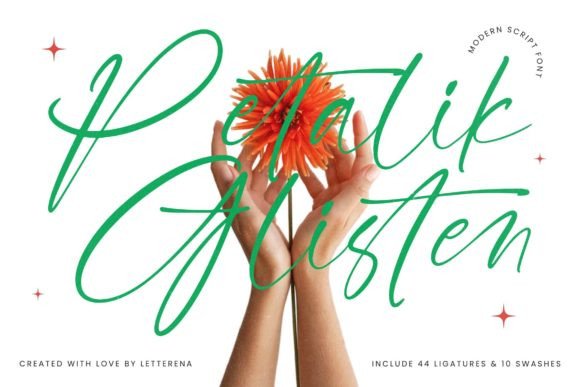
Petalik Glisten: A Luxury Script Font for Crafters
When you are searching for the perfect Fonts to elevate your handmade business, finding a typeface that balances elegance with readability is crucial. Petalik Glisten stands out as a premier choice for creators who need their designs to look expensive and professional. As a Script Handwritten style, it brings a human touch to digital and physical products alike. Whether you are designing wedding invitations or creating custom labels for your candle shop, this font offers the versatility needed to capture customer attention instantly.
Creating High-End Branding with Petalik Glisten
For small shop owners, brand identity is everything. Using Petalik Glisten in your logo design can immediately signal luxury and care to potential buyers. This Script Handwritten typeface flows beautifully, making it ideal for boutique branding projects where personality matters. When you incorporate Fonts like this into your social media graphics and watermarks, you create a cohesive visual language. Customers recognize the consistent use of elegant typography across your Instagram posts, packaging, and website. It transforms a simple handmade item into a premium product. The smooth curves and sophisticated strokes of Petalik Glisten ensure that your brand looks established and trustworthy, even if you are just starting out.
Designing Elegant Wedding Invitations and Stationery
Wedding stationery is one of the most profitable niches for printable creators and invitation designers. Petalik Glisten excels in this area because it mimics the look of high-quality calligraphy without the steep learning curve. When used for names and dates on save-the-dates, menus, and welcome signs, this Script Handwritten font adds a romantic flair. Pairing it with a clean sans serif font for the body text ensures that all the important details remain readable. Many couples look for Fonts that feel personal yet formal, and Petalik Glisten delivers both. You can use it for digital downloads that customers print at home or for professionally printed suites. The ligatures and swashes often found in luxury scripts help connect letters naturally, giving your designs that authentic handwritten feel.
Enhancing Product Packaging and Homeware Designs
Product packaging is the first physical interaction a customer has with your brand. Using Petalik Glisten on labels, tags, and boxes can significantly increase the perceived value of your goods. This Script Handwritten font works exceptionally well on minimalist packaging, where whitespace allows the typography to shine. Whether you are selling organic skincare, artisanal soaps, or gourmet treats, the right Fonts can tell the story of your product. Petalik Glisten is suitable for homeware designs such as ceramic mugs, glass jars, and tote bags. The contrast between the fluid script and hard surfaces like ceramic or glass creates a striking visual appeal. Ensure you check the licensing terms to confirm commercial use for physical goods, but generally, this type of premium font is designed to help sellers stand out on shelves and in online marketplaces.
Crafting Personalized Mugs and Quote Posters
Print-on-demand and handmade gift items rely heavily on typography. Petalik Glisten is perfect for creating personalized mugs, where a name or a short phrase takes center stage. The elegance of this Script Handwritten style makes it a favorite for inspirational quotes and posters. When designing for wall art, consider the scale. Fonts need to be legible from a distance, so using Petalik Glisten for the main headline while keeping supporting text simple is a smart strategy. This approach works well for nursery decor, kitchen signs, and bedroom prints. The font’s natural rhythm guides the eye through the design, making the message feel intimate and special. For crafters using cutting machines, ensure you weld the letters properly to maintain the connections that make script fonts look authentic.
Practical Tips for Readability and Cutting Machines
While Petalik Glisten is visually stunning, practical application requires attention to detail. When using Script Handwritten Fonts with Cricut or Silhouette machines, always preview your design at actual size. Thin strokes can sometimes be fragile when cut from vinyl or cardstock. Adjusting the size ensures that the delicate parts of the letterforms do not tear during weeding. For product labels, avoid using the script for long paragraphs. Instead, reserve Petalik Glisten for titles, names, and short descriptors. Use a complementary serif or sans serif font for ingredients lists or instructions. This hierarchy improves readability and prevents the design from looking cluttered. Testing your designs on mockups before production helps you spot any issues with spacing or contrast.
Pairing Petalik Glisten with Complementary Typefaces
Successful design often depends on font pairing. Petalik Glisten pairs beautifully with modern sans serif fonts that have similar x-heights. This combination creates a balanced look that is both trendy and timeless. Avoid pairing it with other decorative or overly complex scripts, as this can cause visual conflict. When creating templates for Etsy or creative marketplaces, provide examples of good pairings to help your customers visualize the final product. Using Fonts effectively means understanding how they interact. A bold sans serif can ground the airy feel of Petalik Glisten, making it suitable for masculine or neutral-themed projects as well as feminine ones. Experiment with different weights and styles to find the perfect match for your specific niche.
Understanding font licensing is essential for any serious creator. Before using Petalik Glisten in client work or for mass-produced items, review the license provided by Letterena. Most premium Script Handwritten Fonts allow for commercial use in physical products, but restrictions may apply to digital templates or logo trademarks. Ensuring you are compliant protects your business and respects the designer’s work. By investing in high-quality assets like Petalik Glisten, you are investing in the longevity and professionalism of your brand. This font is not just a design element; it is a tool that helps you communicate quality, care, and creativity to your audience. Whether you are making stickers, signs, or full branding packages, let the elegance of this typeface do the heavy lifting for your sales.